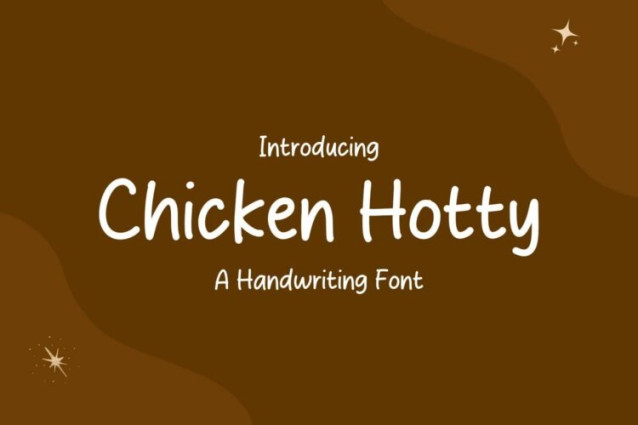
Chicken Hotty Font
Chicken Hotty Font is a simple and friendly handwritten font. Its natural and unique style makes it incredibly fitting to a large pool of designs. The only limit is your imagination!